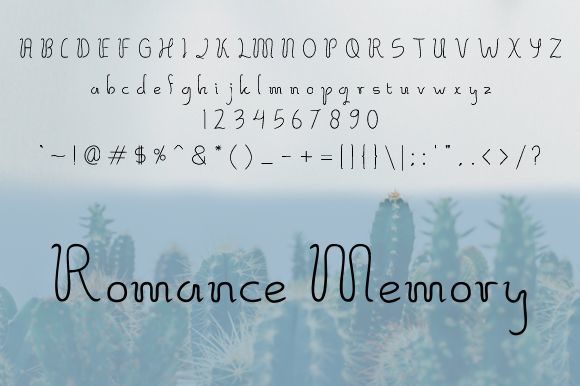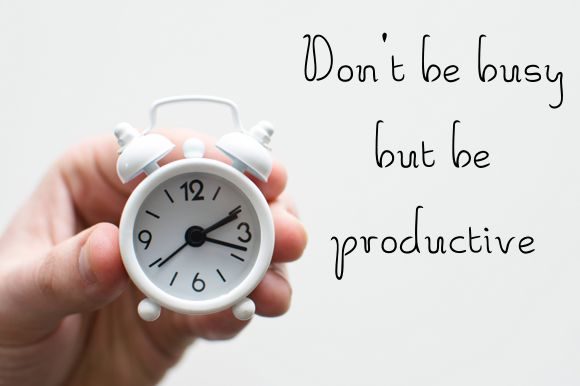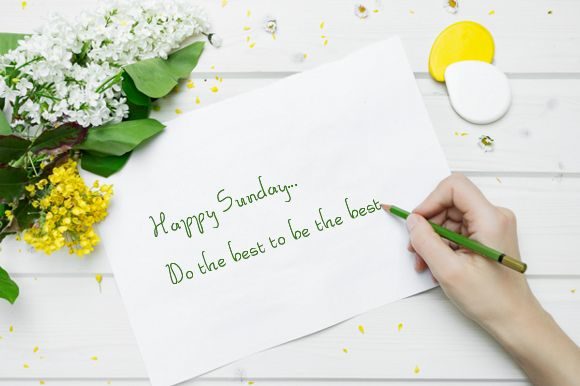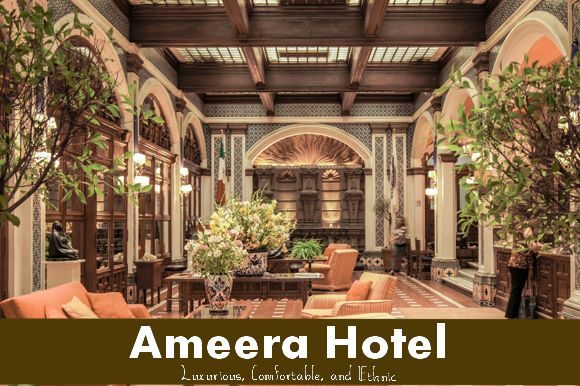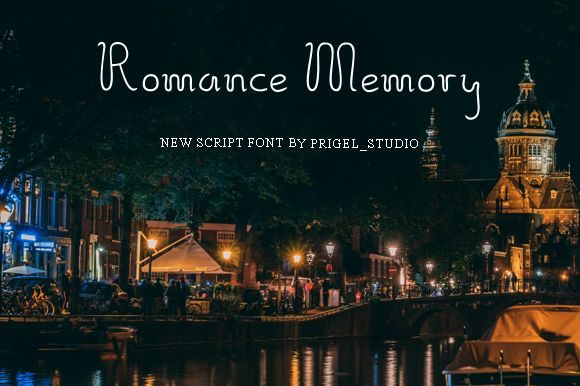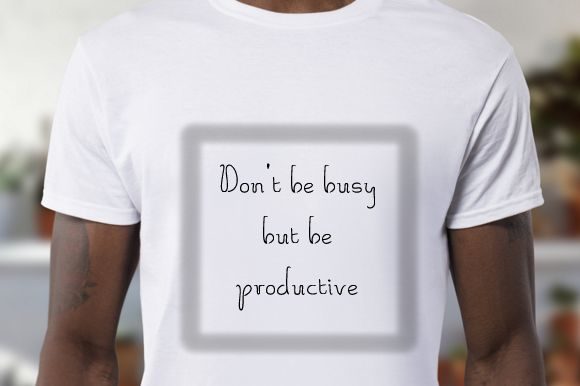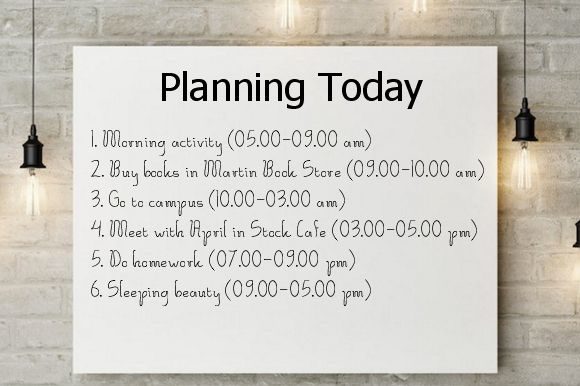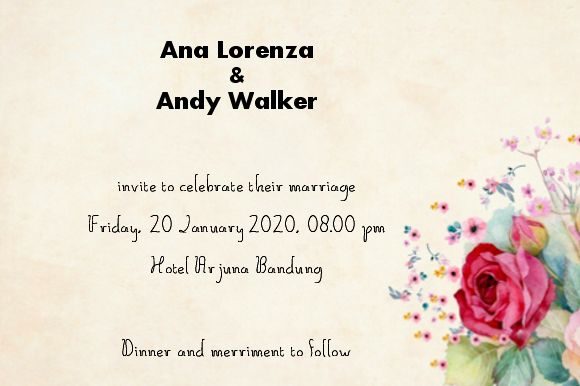
Romance Memory Font
About Romance Memory Font
Romance Memory is an authentic and dynamic script font. It’s perfectly suitable for use on invitations, publications, taglines, photography, and much more!